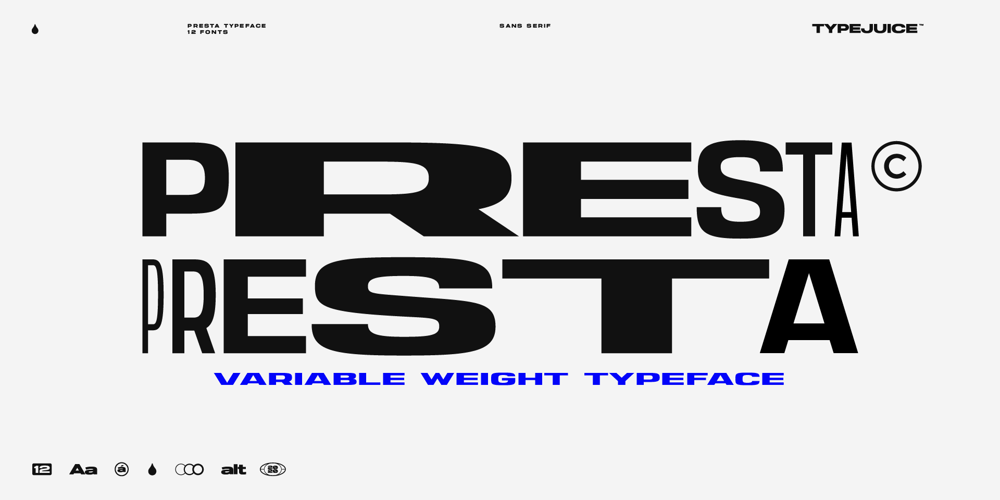
Presta
Presta font
Presta Font Family was designed by Matthew Messiha and published by Type Juice. Presta contains 11 styles and family package options. Presta is a variable weight sans serif typeface made up of 12 fonts from thin and condensed to wide and bold. Included in the variable font are over 500 alternate glyphs for creative customization. 12 fonts total 5 font weights Upper / lowercase glyphs Multilingual Over 5000 glyphs